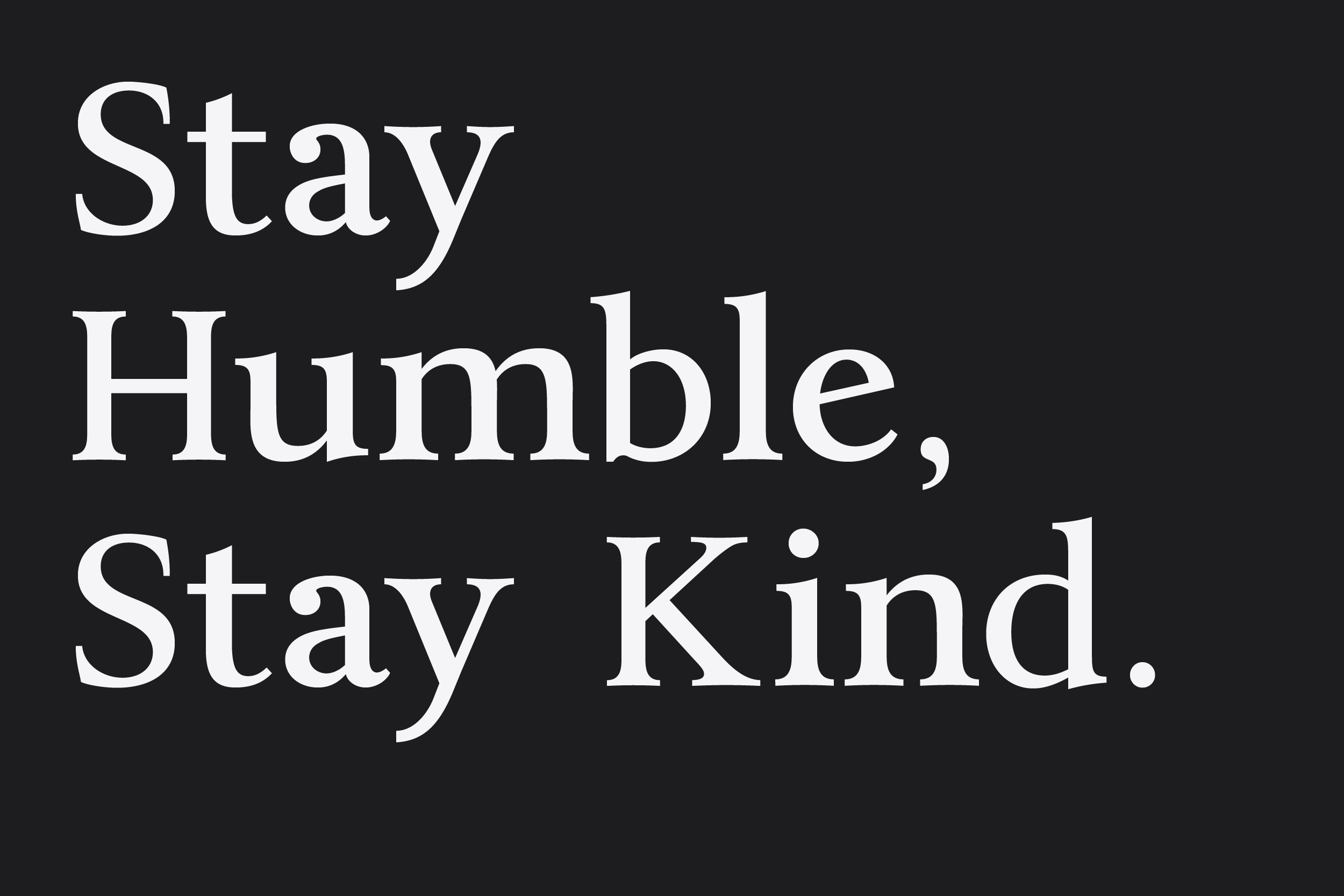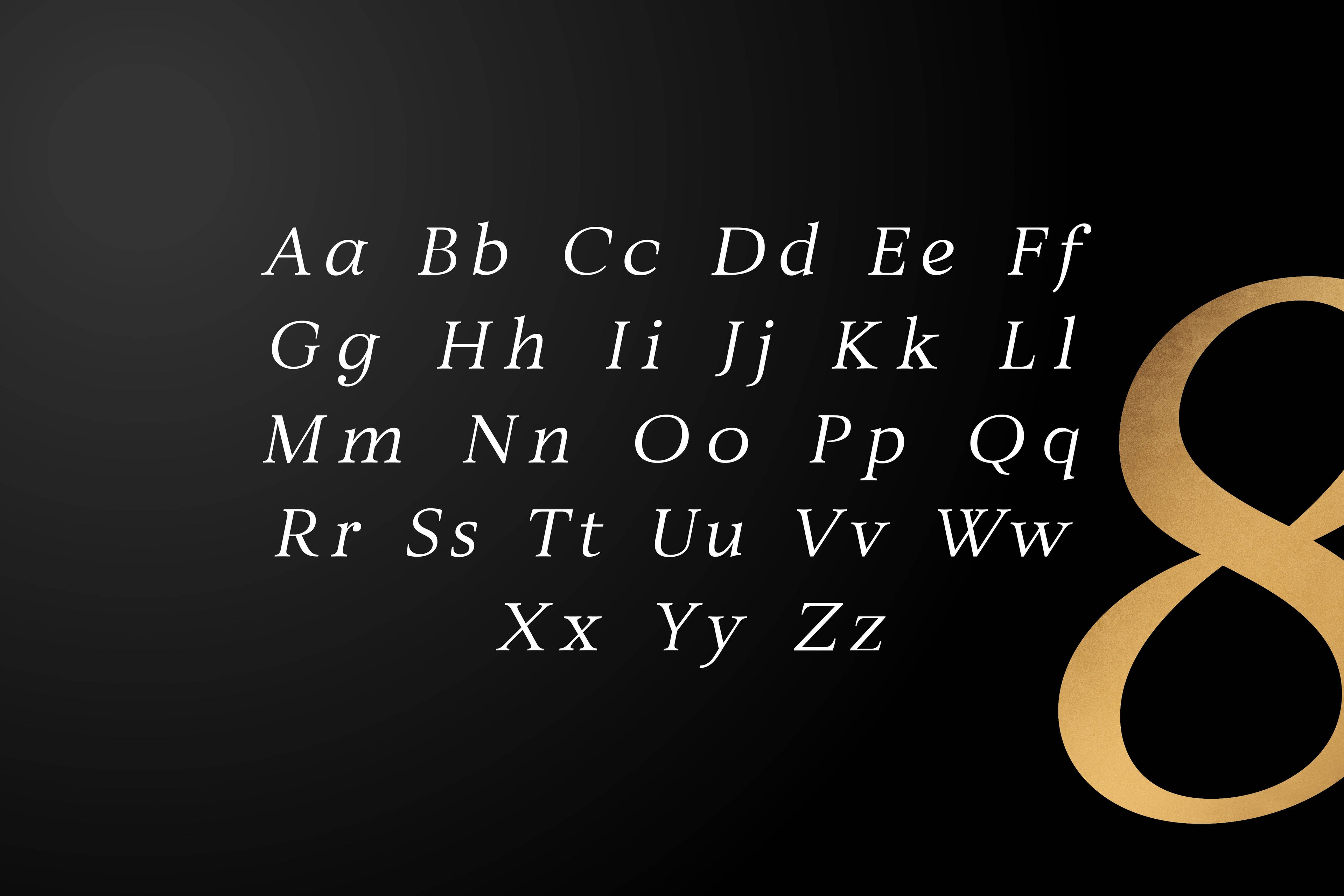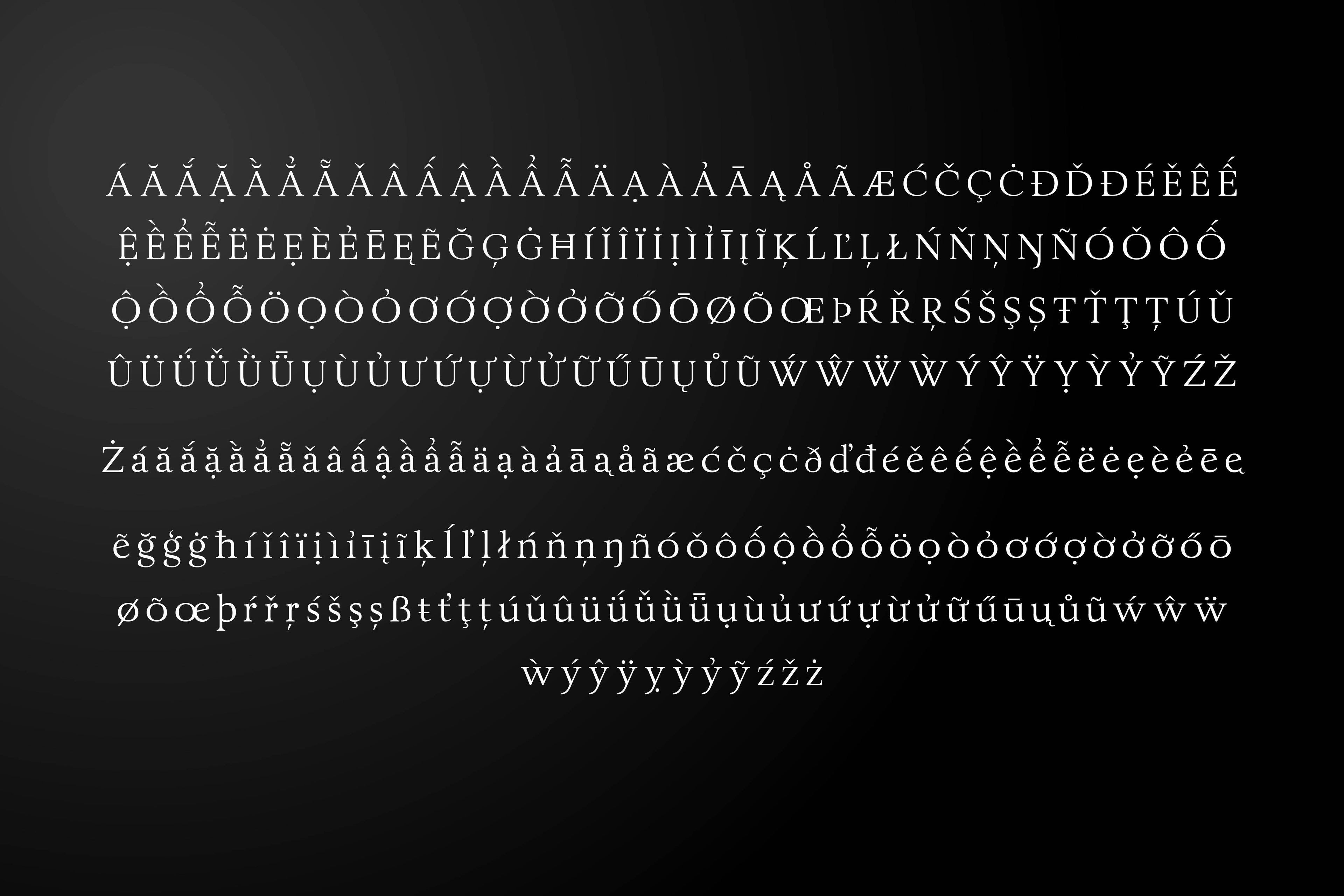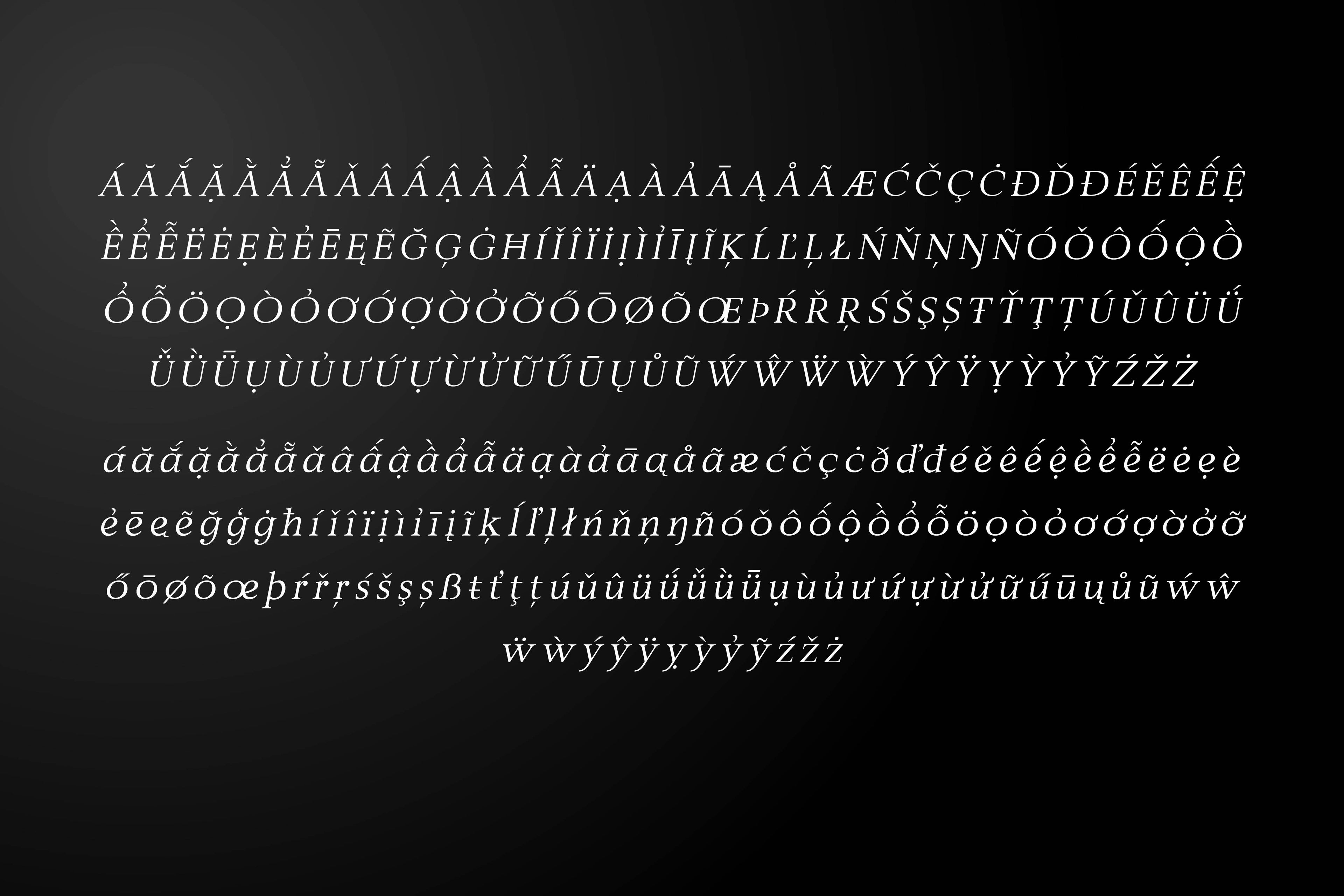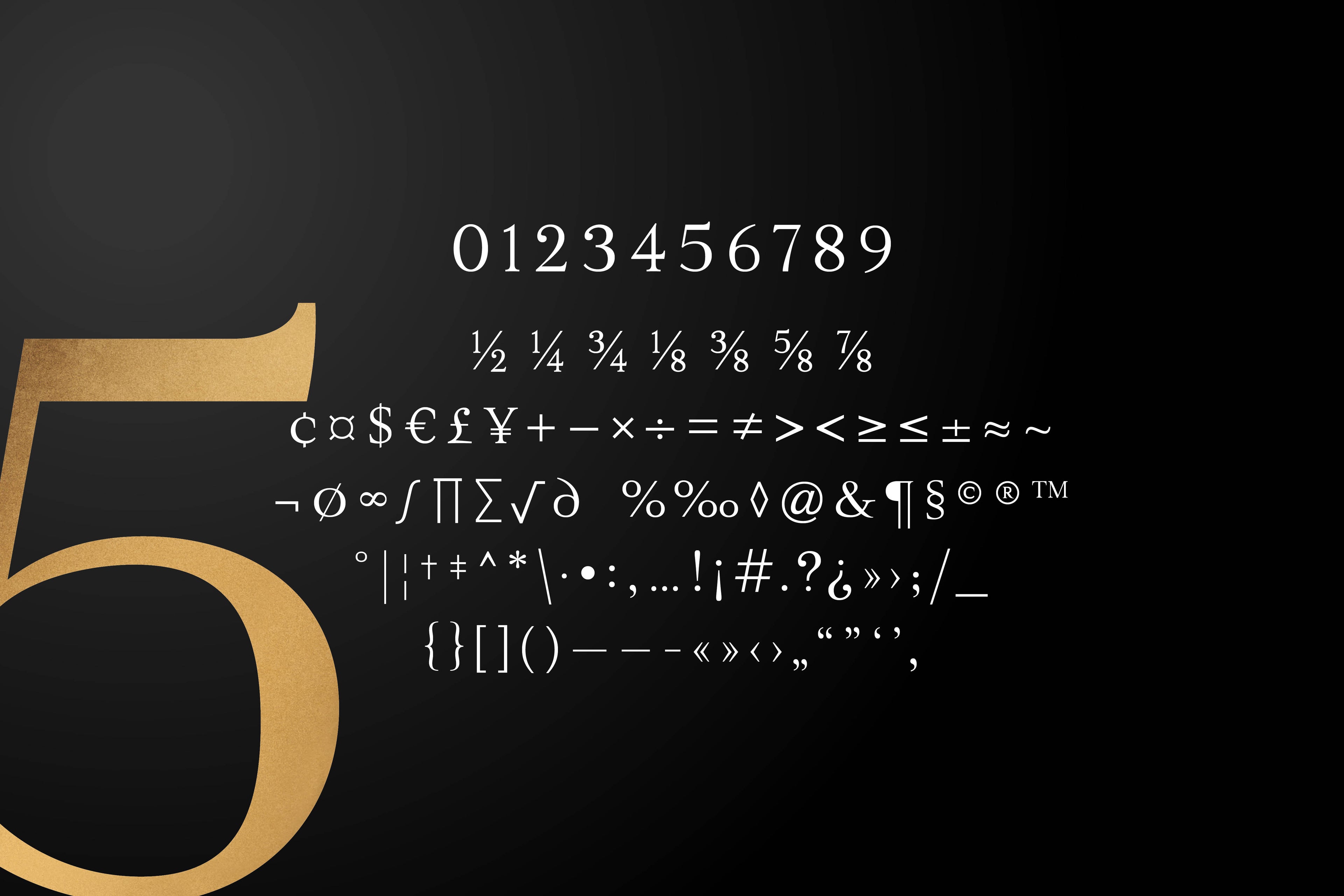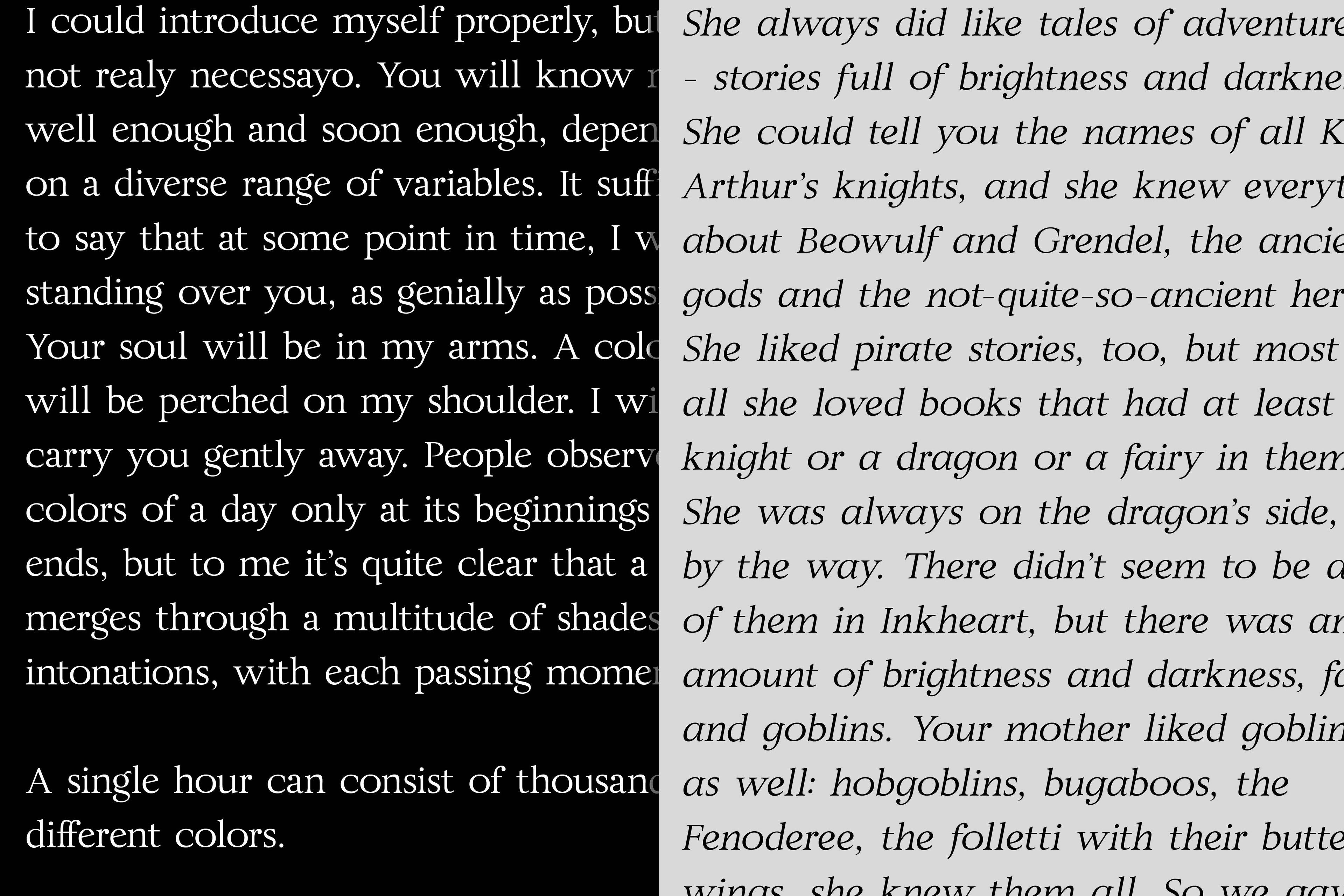
JT Alvito
The JT Alvito family includes 5 weights with matching italics. It is ideally used as a dipslay typeface but can also be used in body copy. You will find that it works particularly well in advertising, packaging, logo design and branding. JT Alvito provides advanced typographical support with features such as ligatures, fractions, and super- and subscript characters. It holds most glyphs which are required for Western European, Central European, South Eastern European and Vietnamese languages.